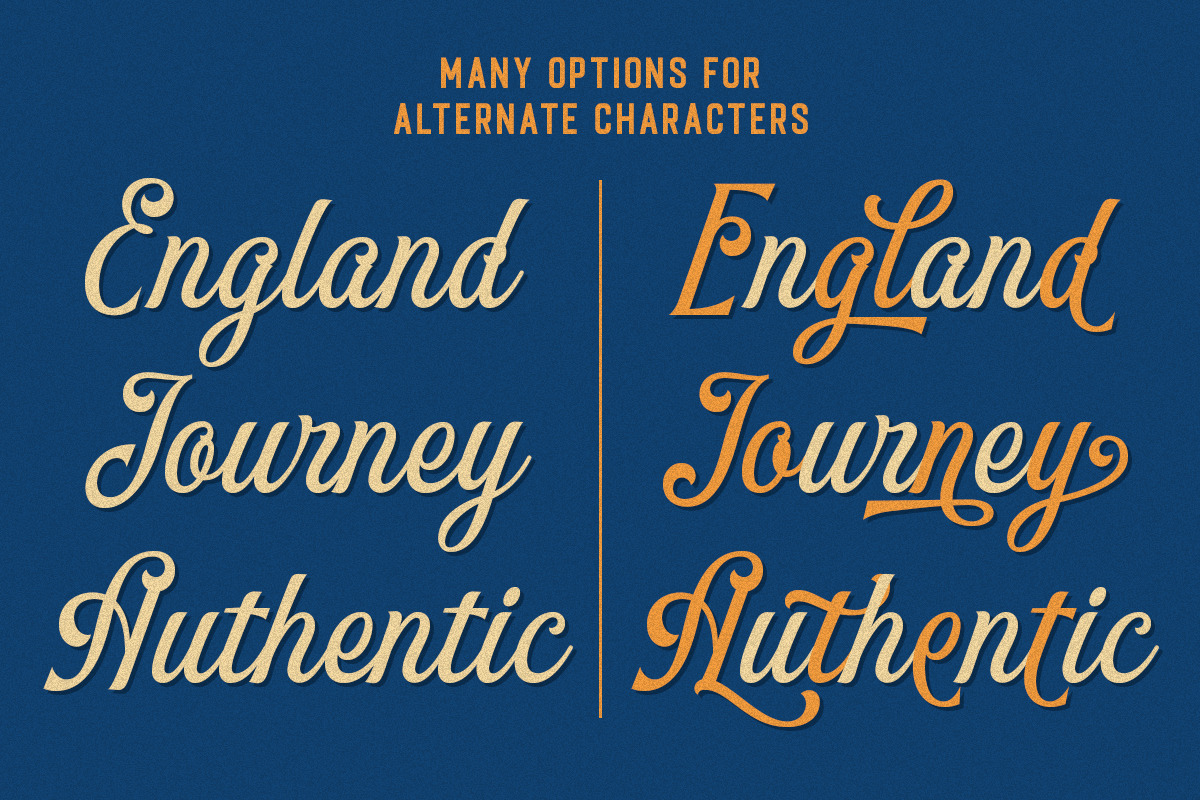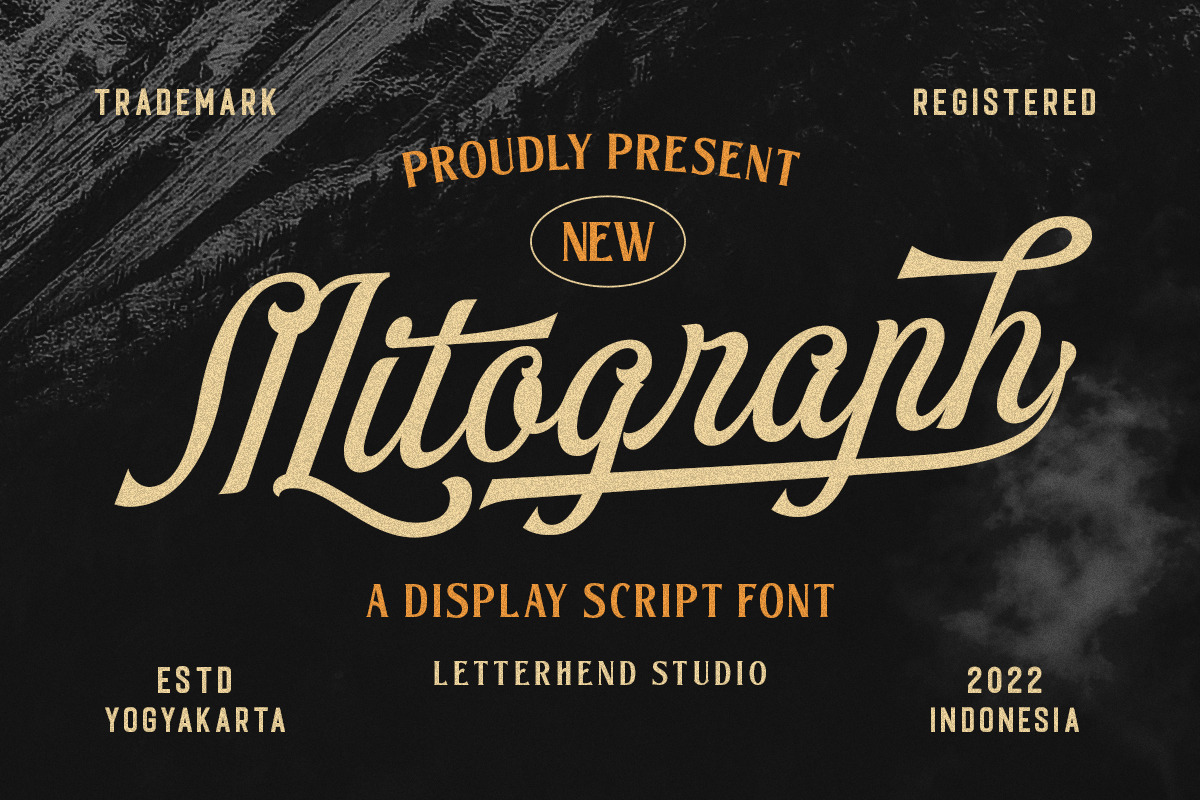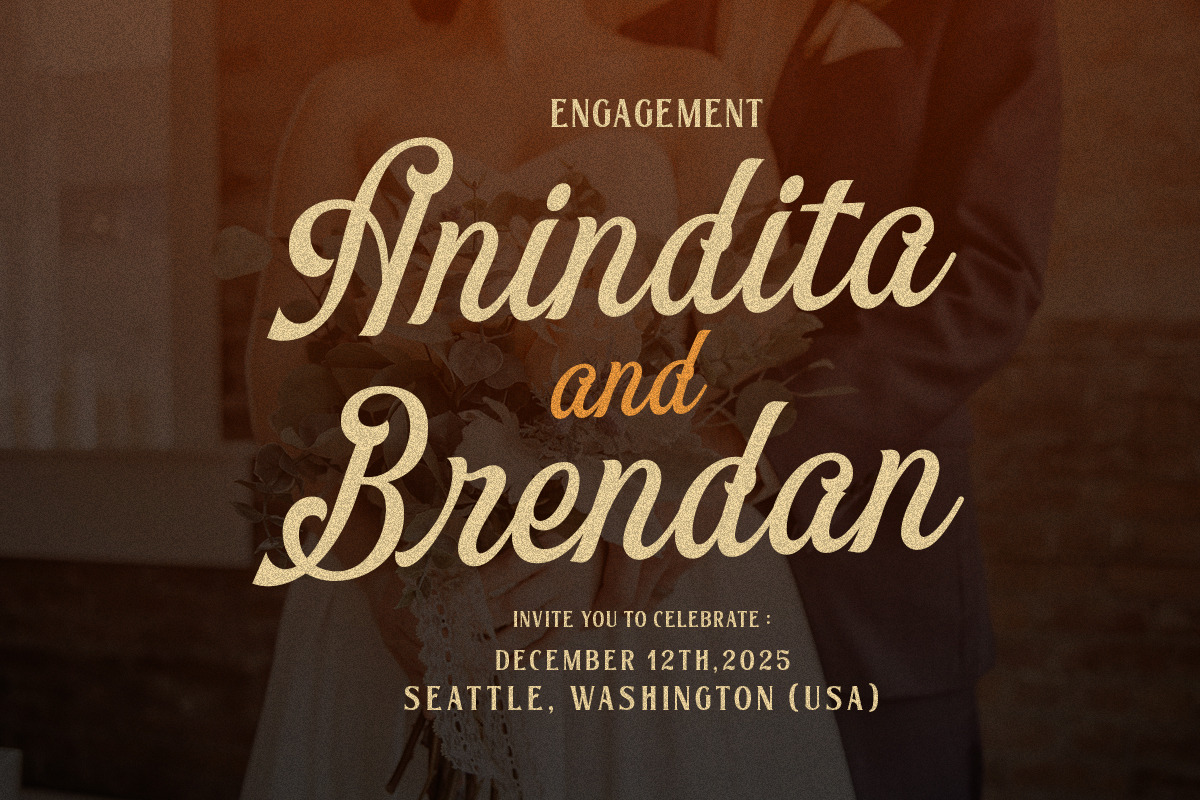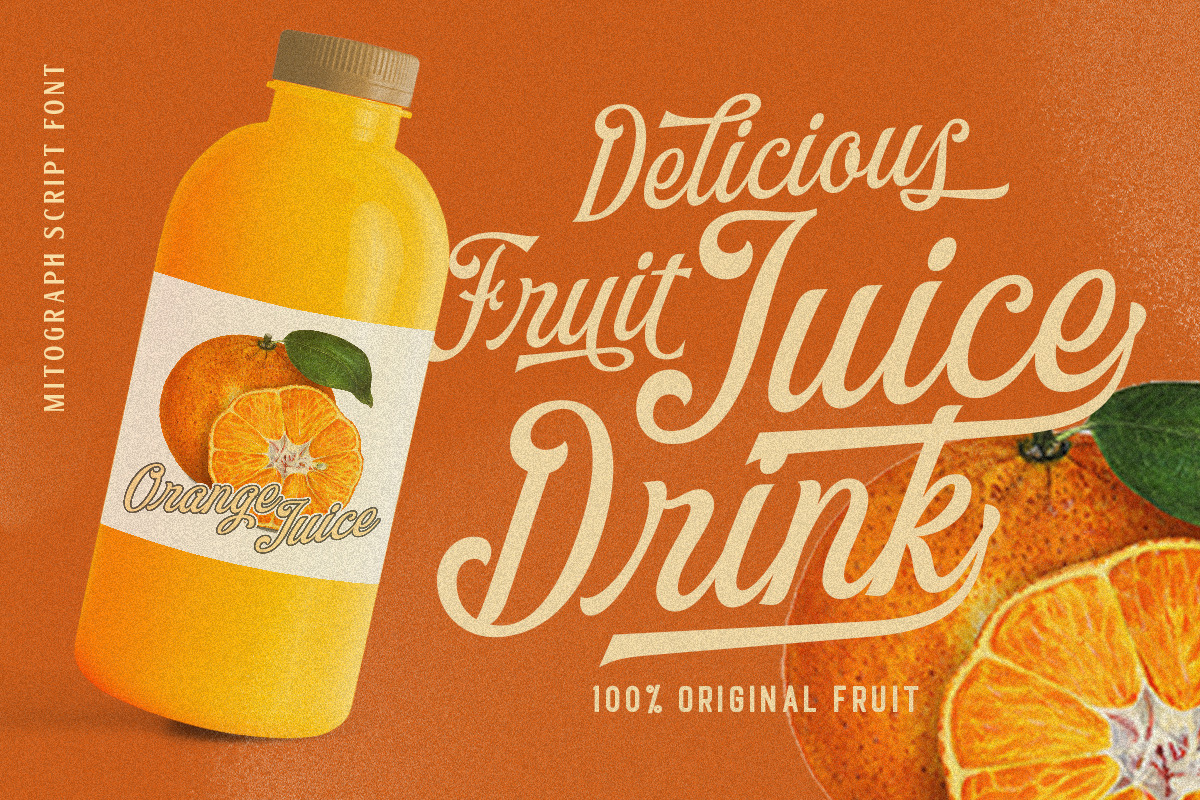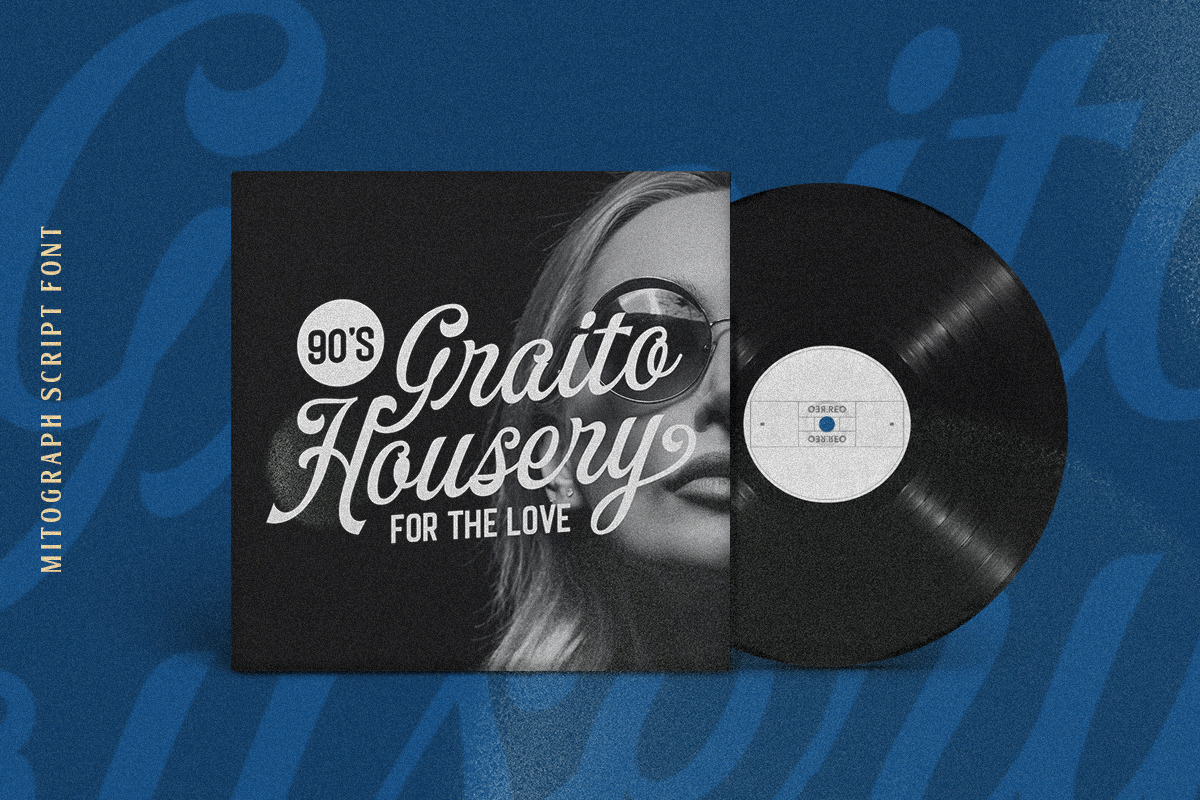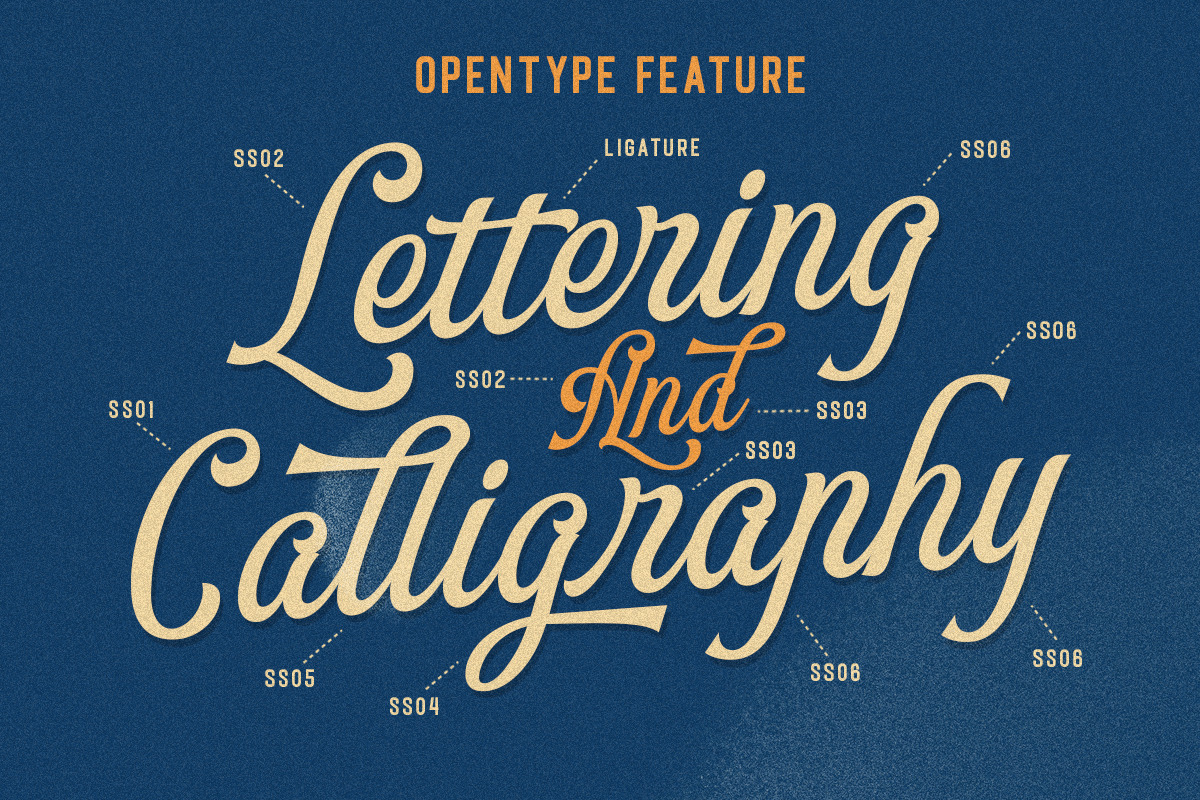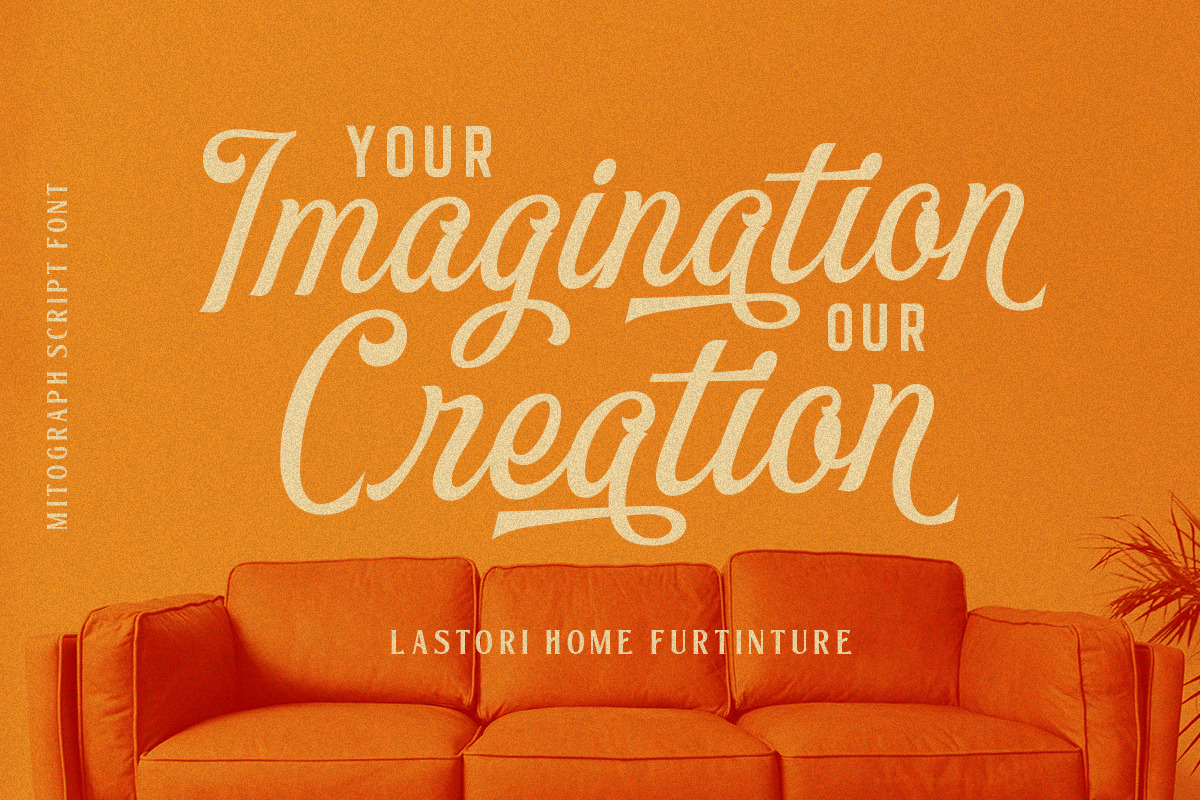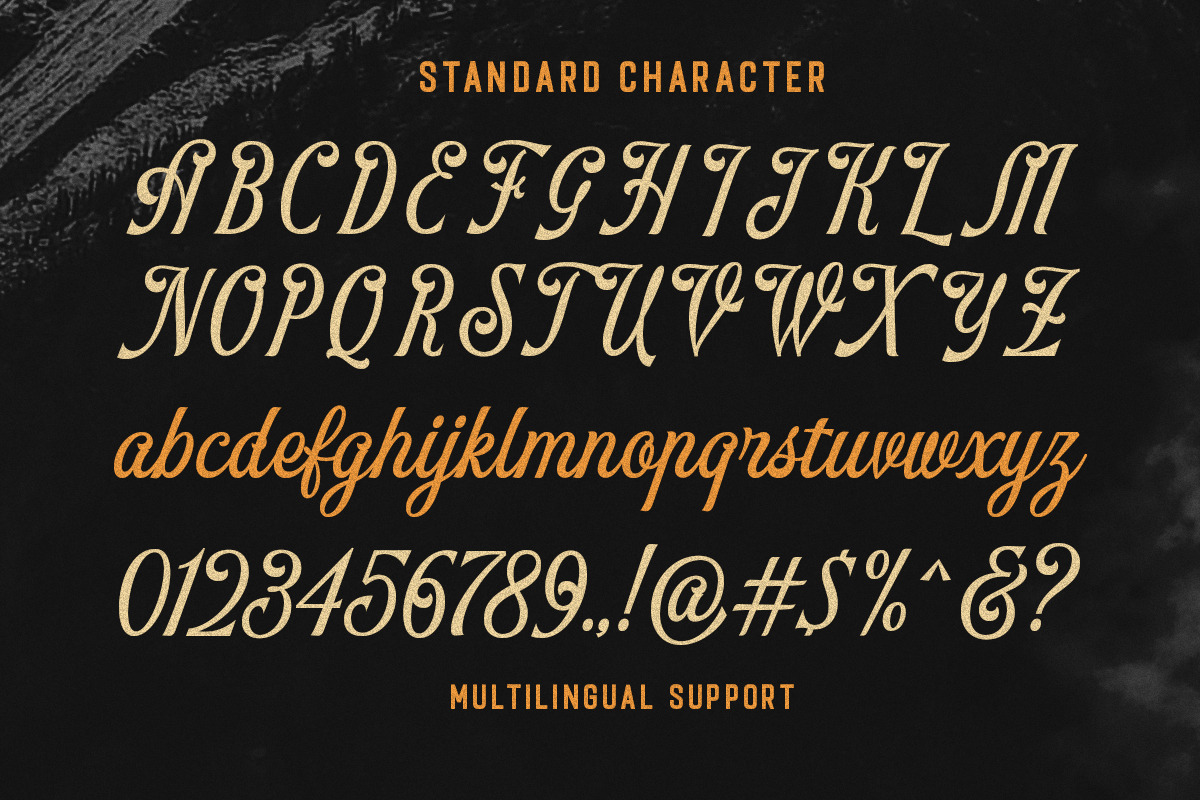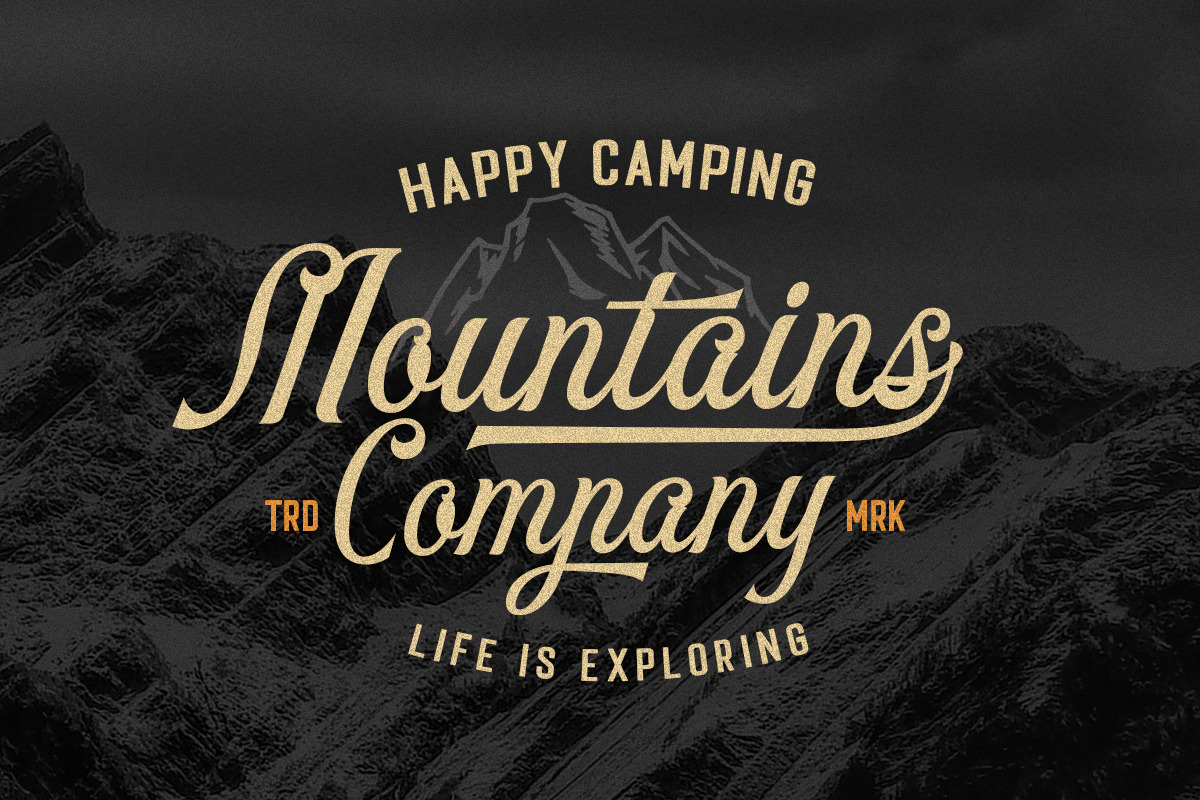
Mitograph - Display Script Font
Mitograph is a stunning display script font that seamlessly blends classic and modern design elements to create a unique and stylish typeface. This font perfectly made to be applied especially in logo, and the other various formal forms such as invitations, labels, logos, magazines, books, greeting / wedding cards, packaging, fashion, make up, stationery, novels, labels or any type of advertising purpose.